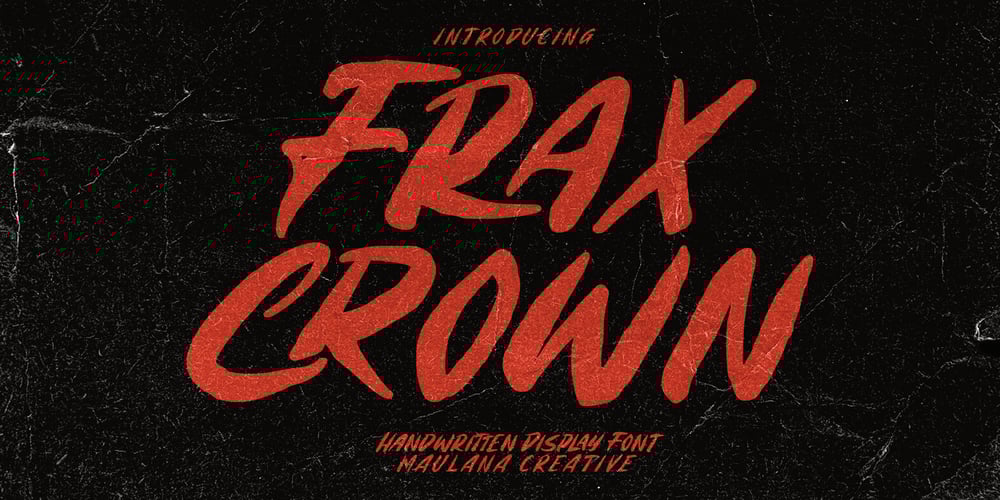
Fraxcrown Font Family was designed by Gilang Maulana and published by Maulana Creative. Fraxcrown contains 1 styles and family package options. Fraxcrown is a modern horror vibes display font. With bold brush stroke, fun character with a bit of ligatures and alternates. To give you an extra creative work. Fraxcrown font support multilingual more than 100+ language. This font is good for logo design, Social media, Movie Titles, Books Titles, a short text even a long text letter and good for your secondary text font with sans or serif. Make a stunning work with Fraxcrown font. Cheers, Maulana Creative